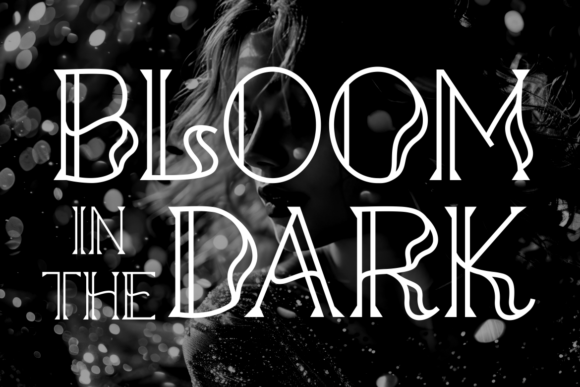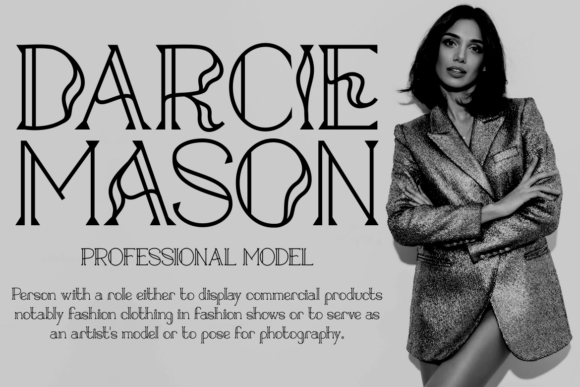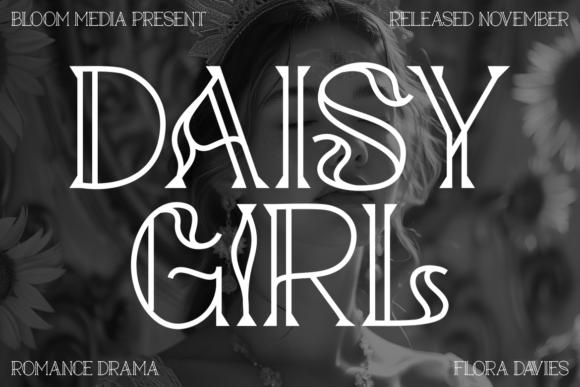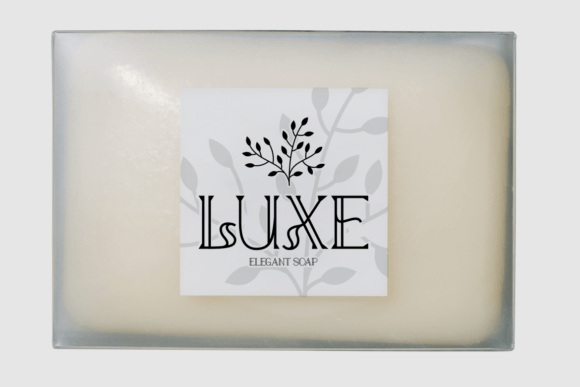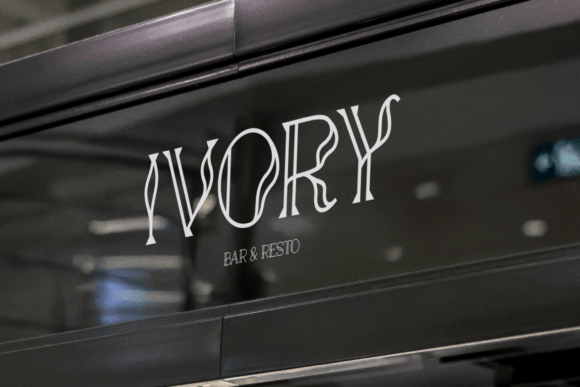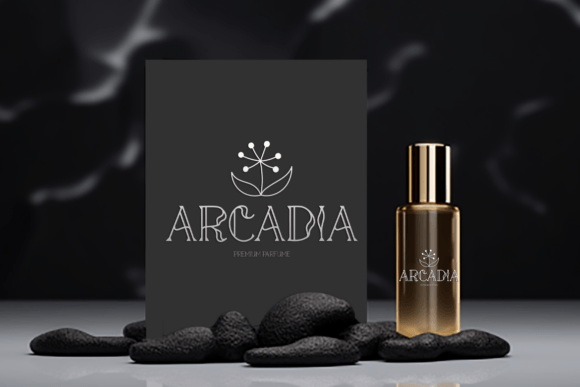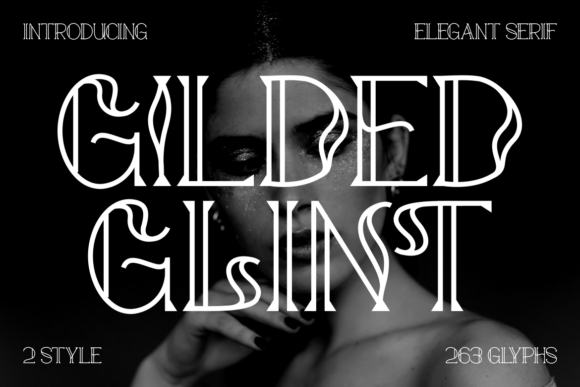
Introducing Gilded Glint: Elevate Your Designs with Modern Luxury and Refined Charm
In the world of typography, a font can make all the difference in setting the tone and aesthetic of your design. For those seeking to infuse their projects with a sense of modern luxury and refined charm, look no further than Gilded Glint. This striking and sophisticated elegant serif font is designed to capture attention and leave a lasting impression.
A Harmonious Balance of Elegance and Boldness
Gilded Glint boasts uniquely curved and flowing elements that blend seamlessly with sharp, geometric serifs. This thoughtful design creates a harmonious balance of elegance and boldness, making it perfect for a wide range of applications, from high-end branding and advertising to elegant editorial designs and captivating display typography.
Meticulously Crafted Details with a Contemporary Twist
Each glyph in the Gilded Glint font showcases meticulously crafted details with a contemporary twist. The font’s designer has carefully refined every element to ensure that it exudes a sense of modern sophistication and luxury. Whether you’re looking to create a bold statement or add a touch of elegance to your design, Gilded Glint has got you covered.
Two Distinct Styles and 263 Glyphs for Flexibility and Uniqueness
One of the standout features of Gilded Glint is its versatility. The font comes with two distinct styles, offering flexibility and uniqueness for creative expression. With a total of 263 glyphs at your disposal, you’ll have all the tools you need to bring your design vision to life. Whether you’re working on a large-scale branding project or a small-scale craft project, Gilded Glint has the flexibility to adapt to your needs.
Gilded Glint is a perfect choice for designers and crafters looking to elevate their work with modern luxury and refined charm. Whether you’re a seasoned professional or just starting out, this font is designed to help you create stunning designs that capture attention and leave a lasting impression.
Key Features of Gilded Glint
- Elegant serif font with uniquely curved and flowing elements
- Sharp, geometric serifs for a harmonious balance of elegance and boldness
- Meticulously crafted details with a contemporary twist
- Two distinct styles for flexibility and uniqueness
- 263 glyphs for a wide range of design possibilities
In conclusion, Gilded Glint is a striking and sophisticated elegant serif font that’s perfect for designers and crafters looking to infuse their projects with modern luxury and refined charm. With its unique blend of elegance and boldness, meticulously crafted details, and versatility, this font is sure to become a go-to choice for anyone looking to elevate their designs. So why wait? Download Gilded Glint today and start creating stunning designs that capture attention and leave a lasting impression!